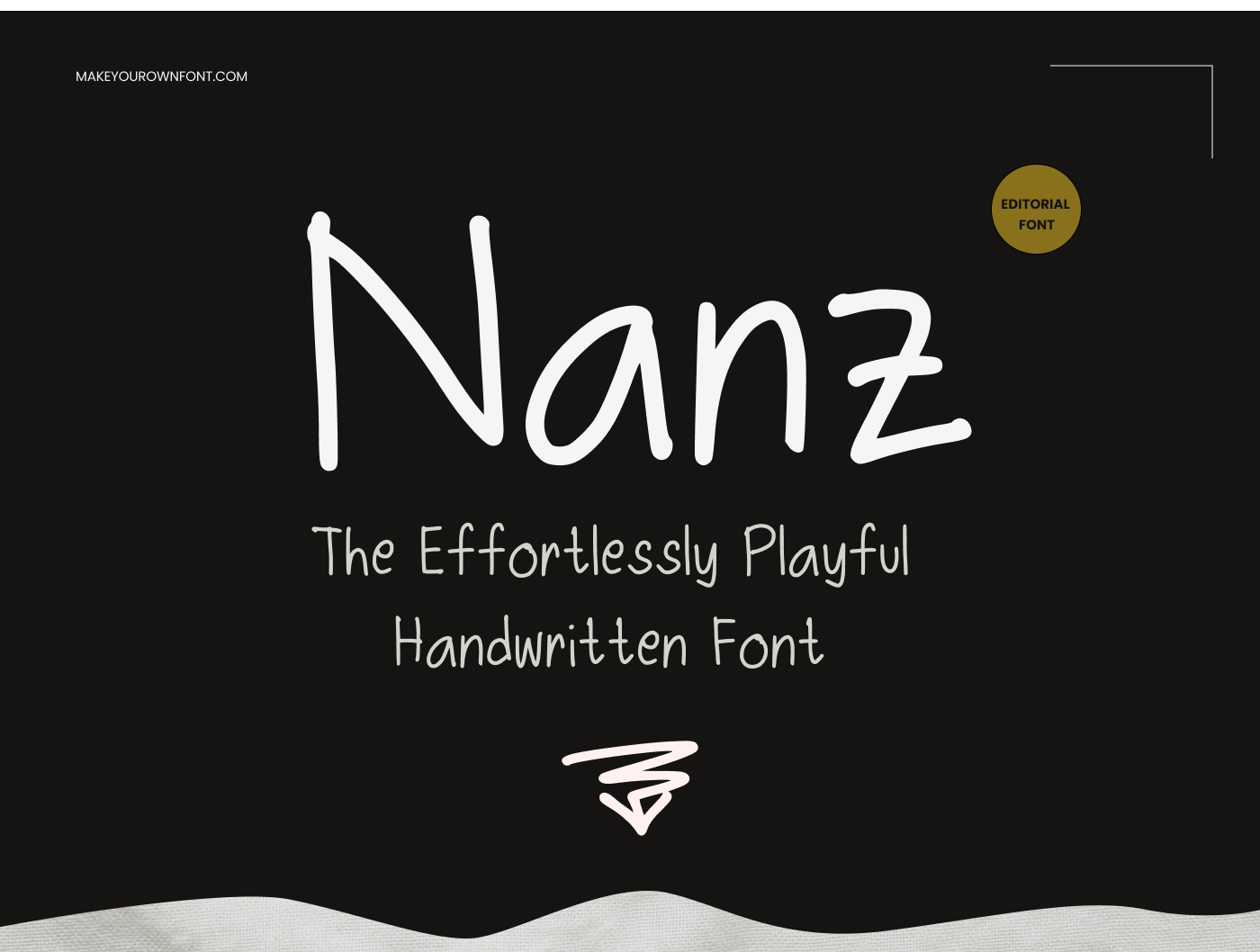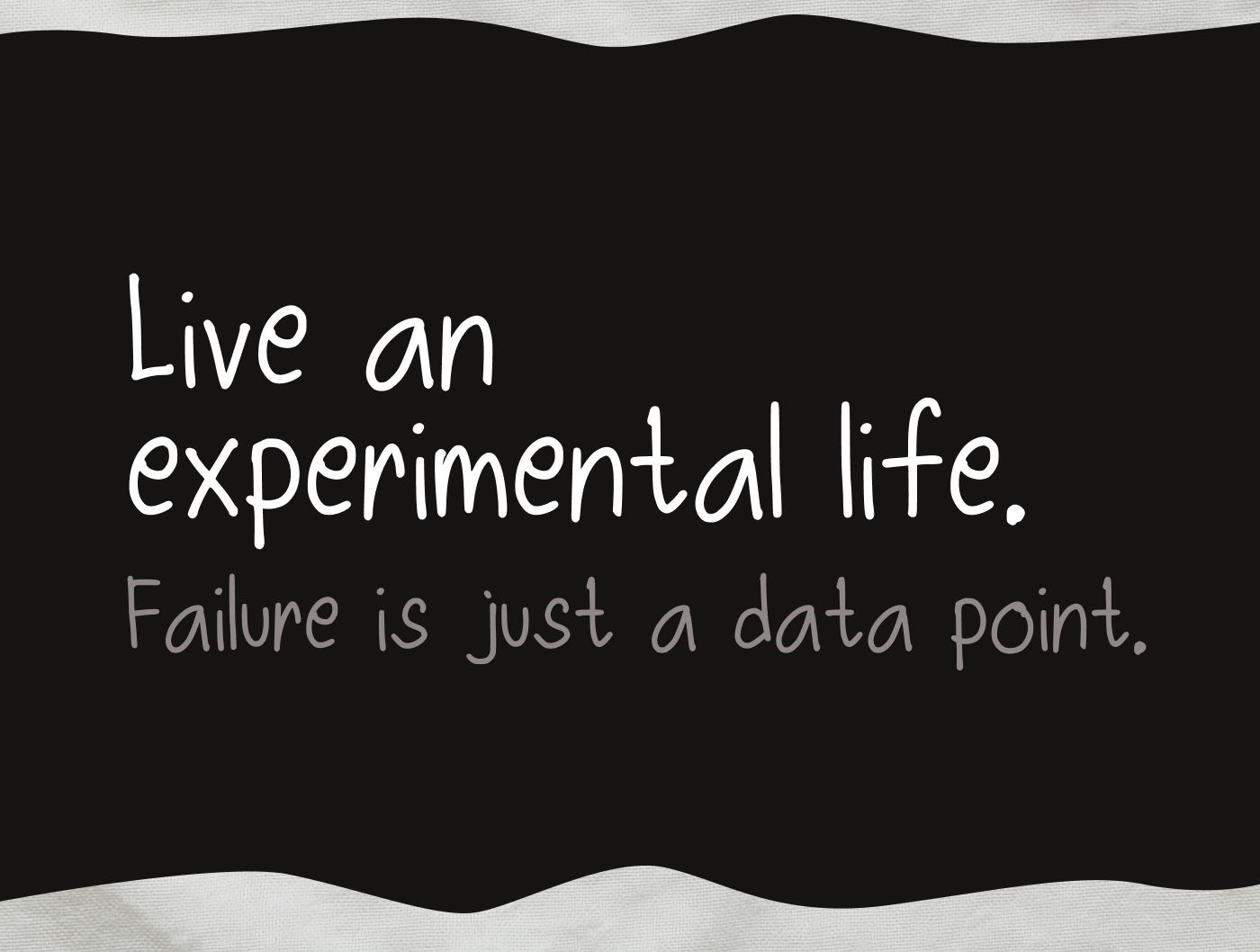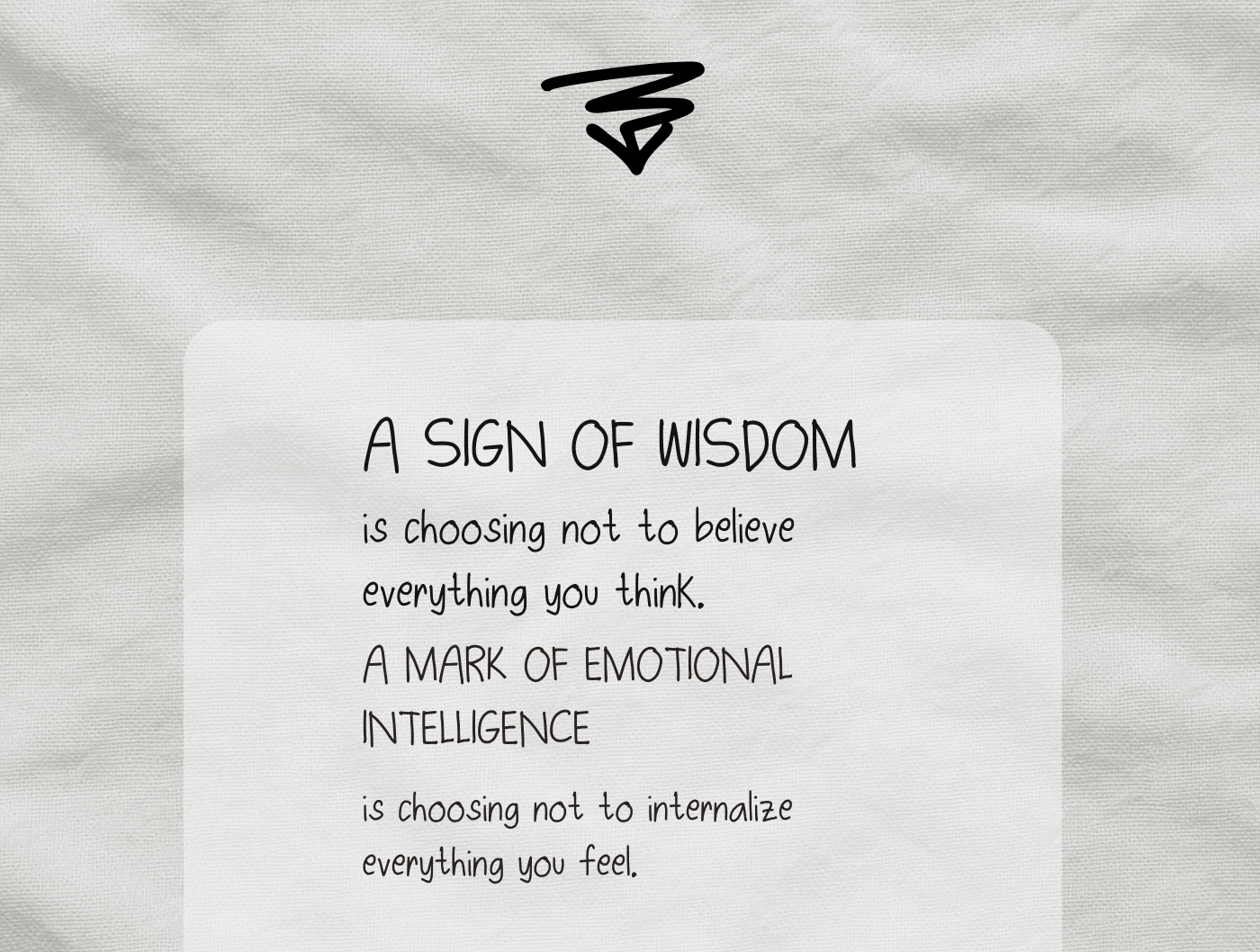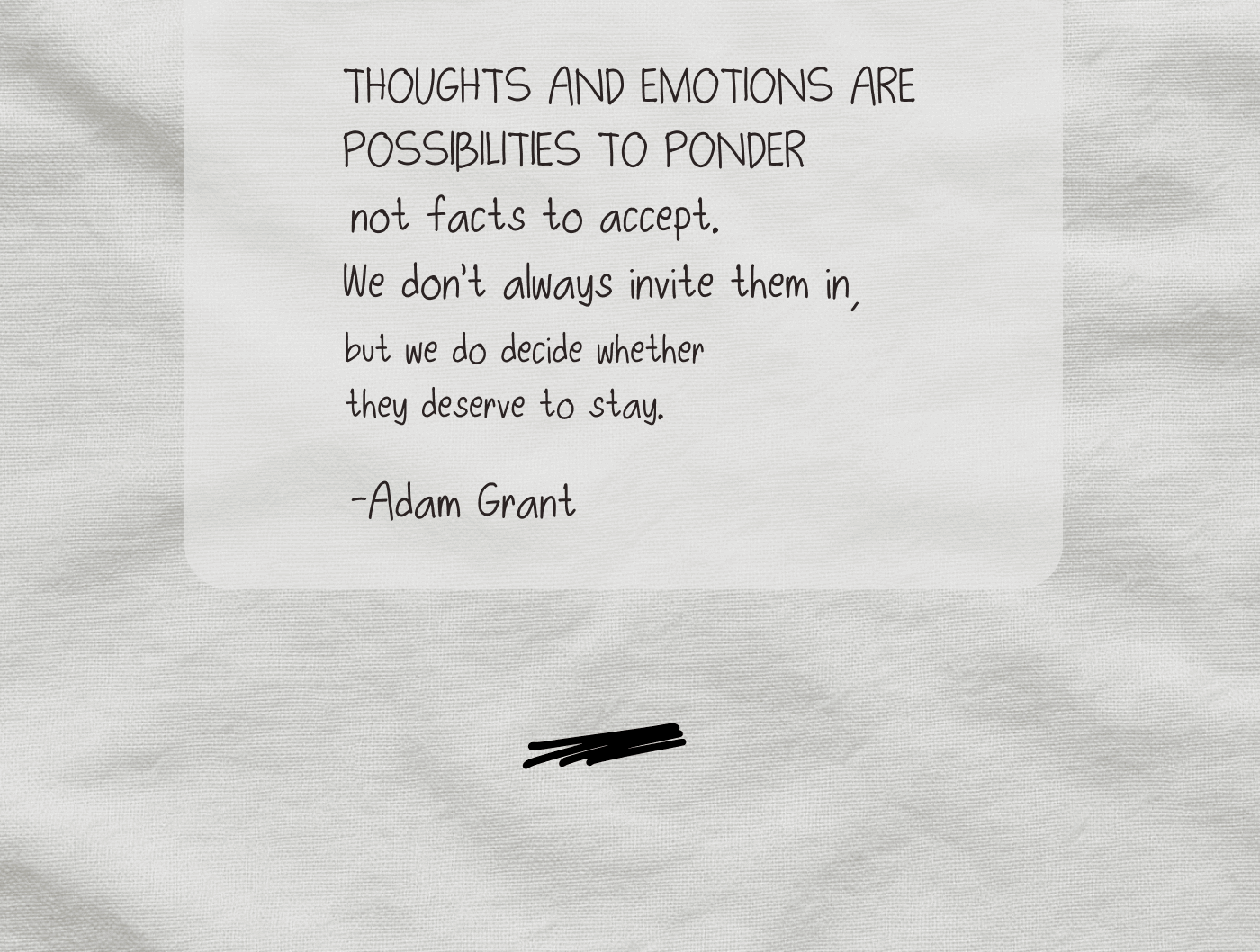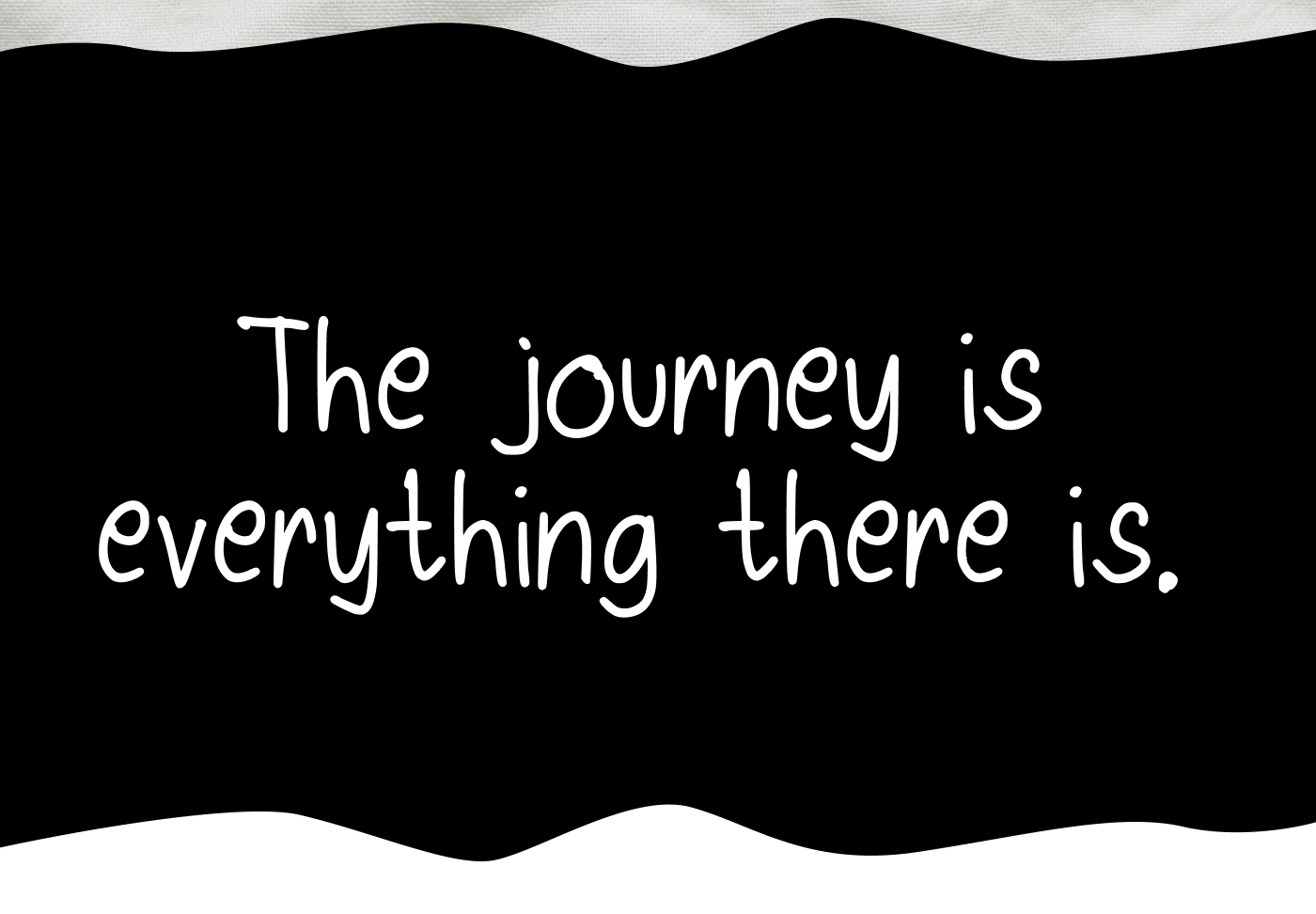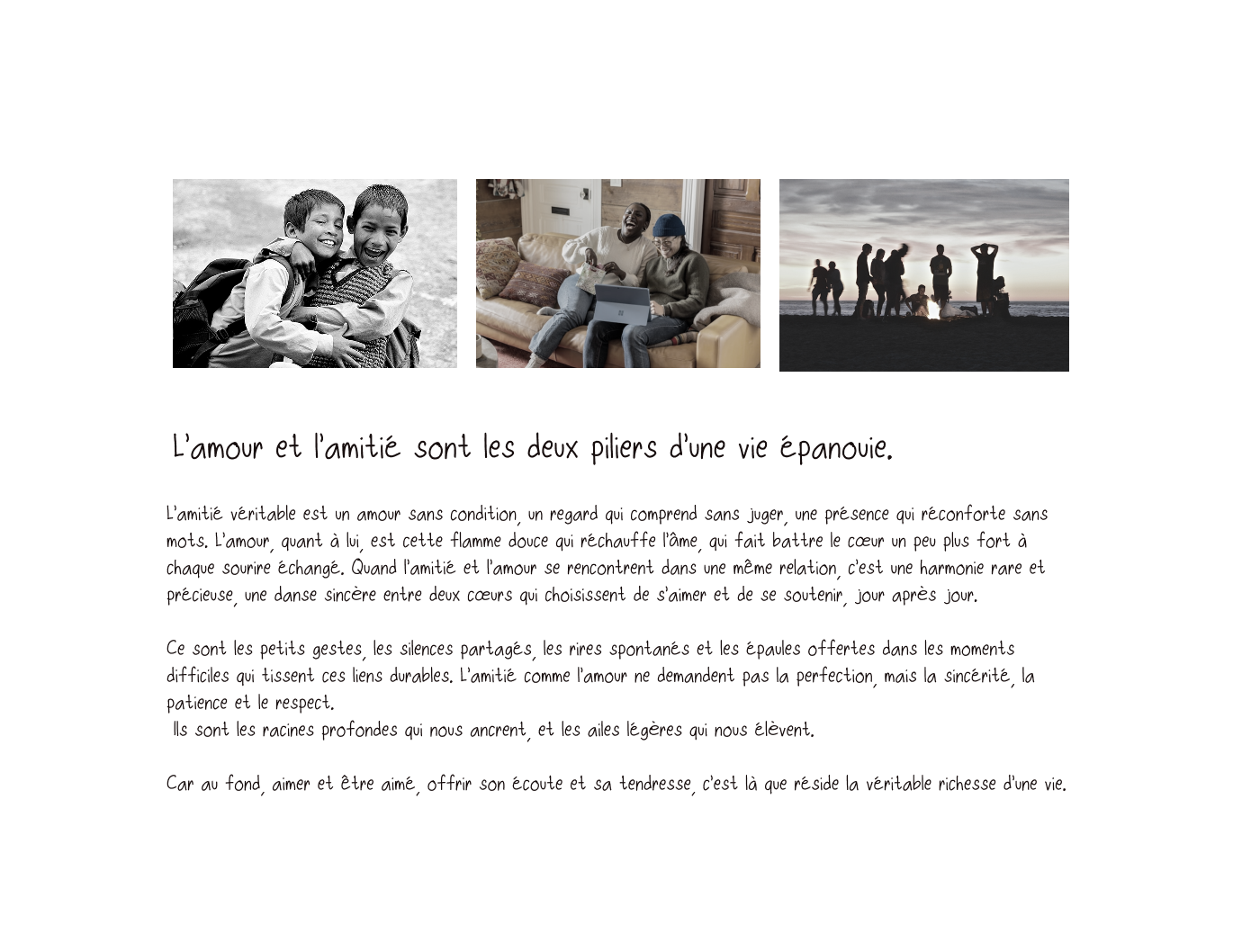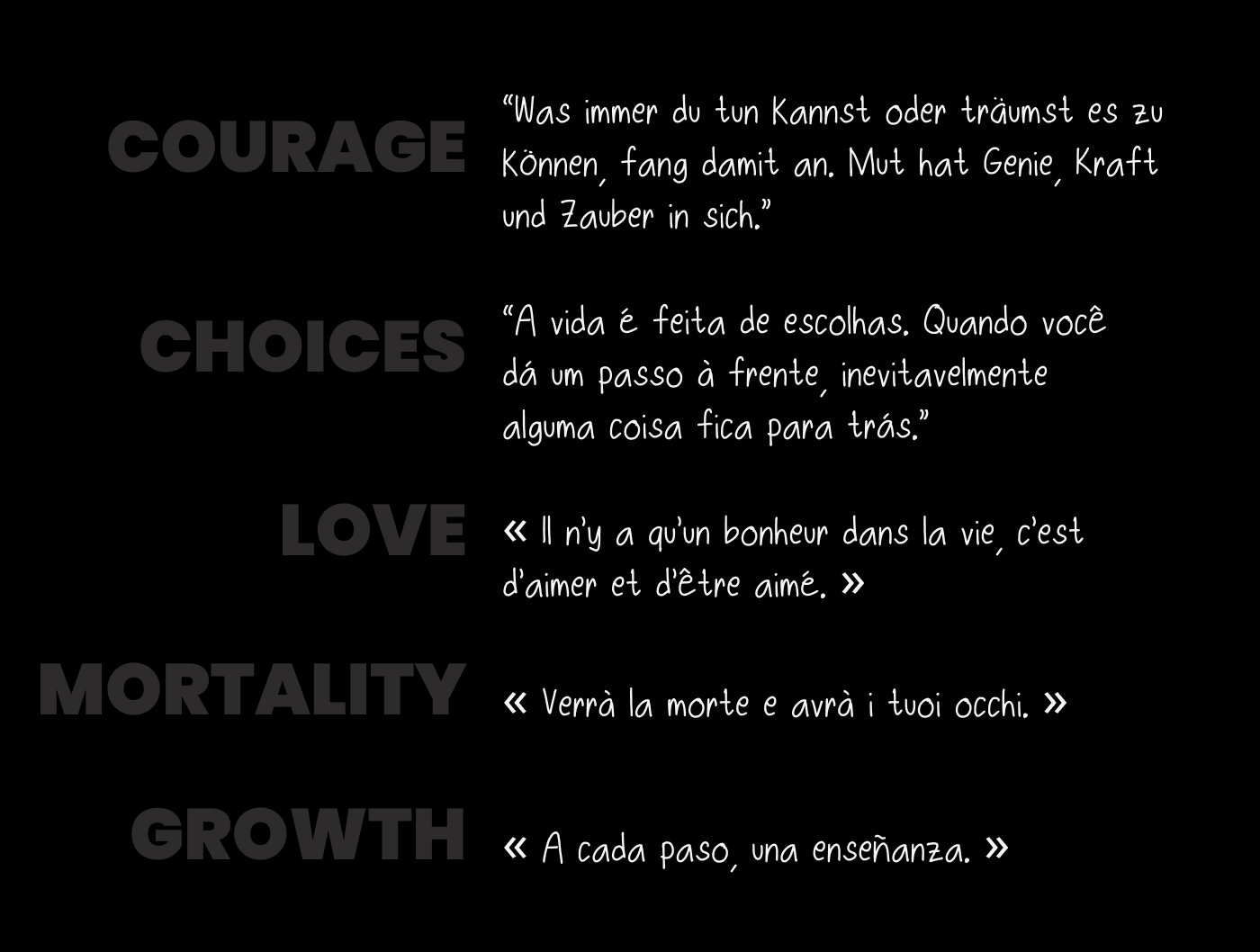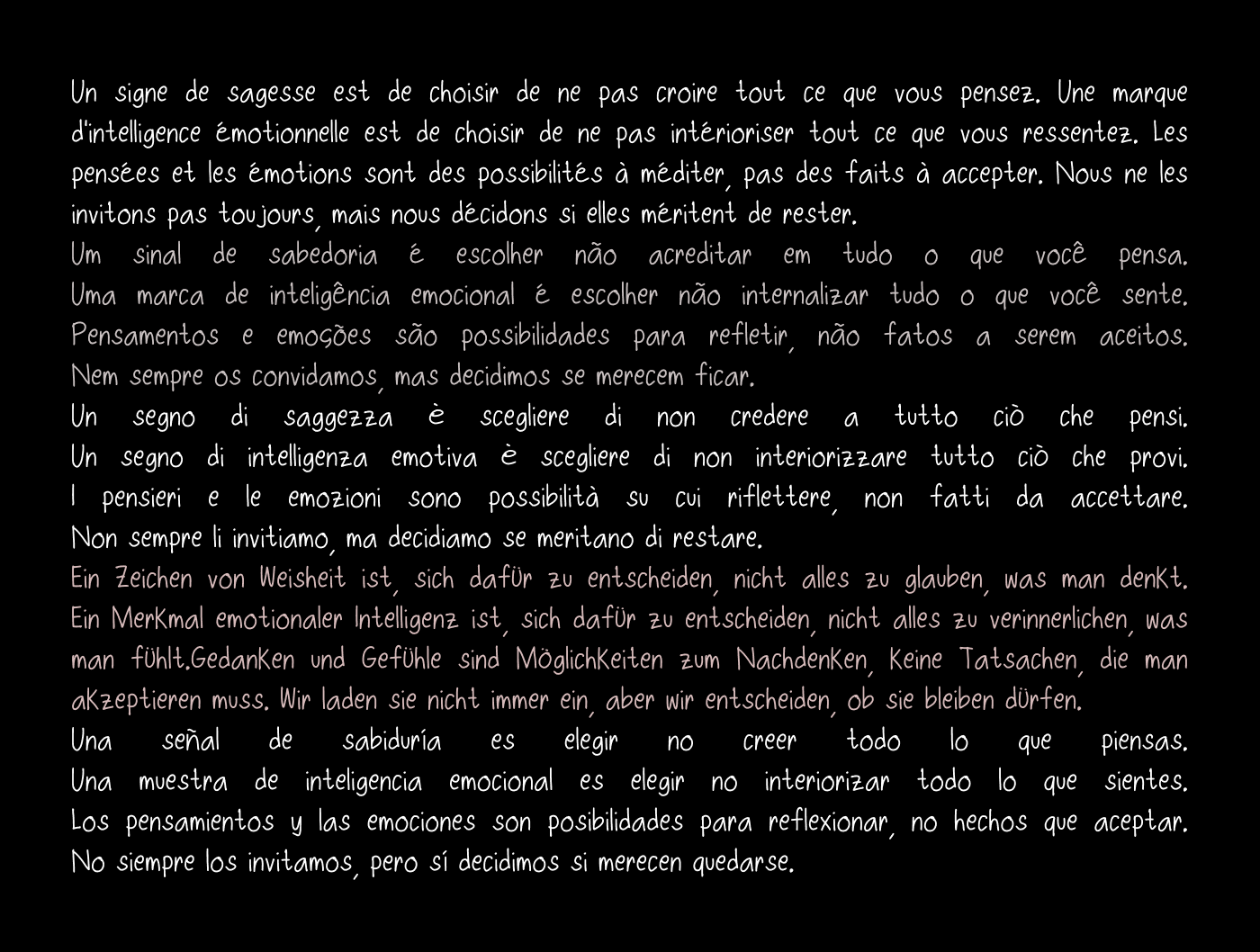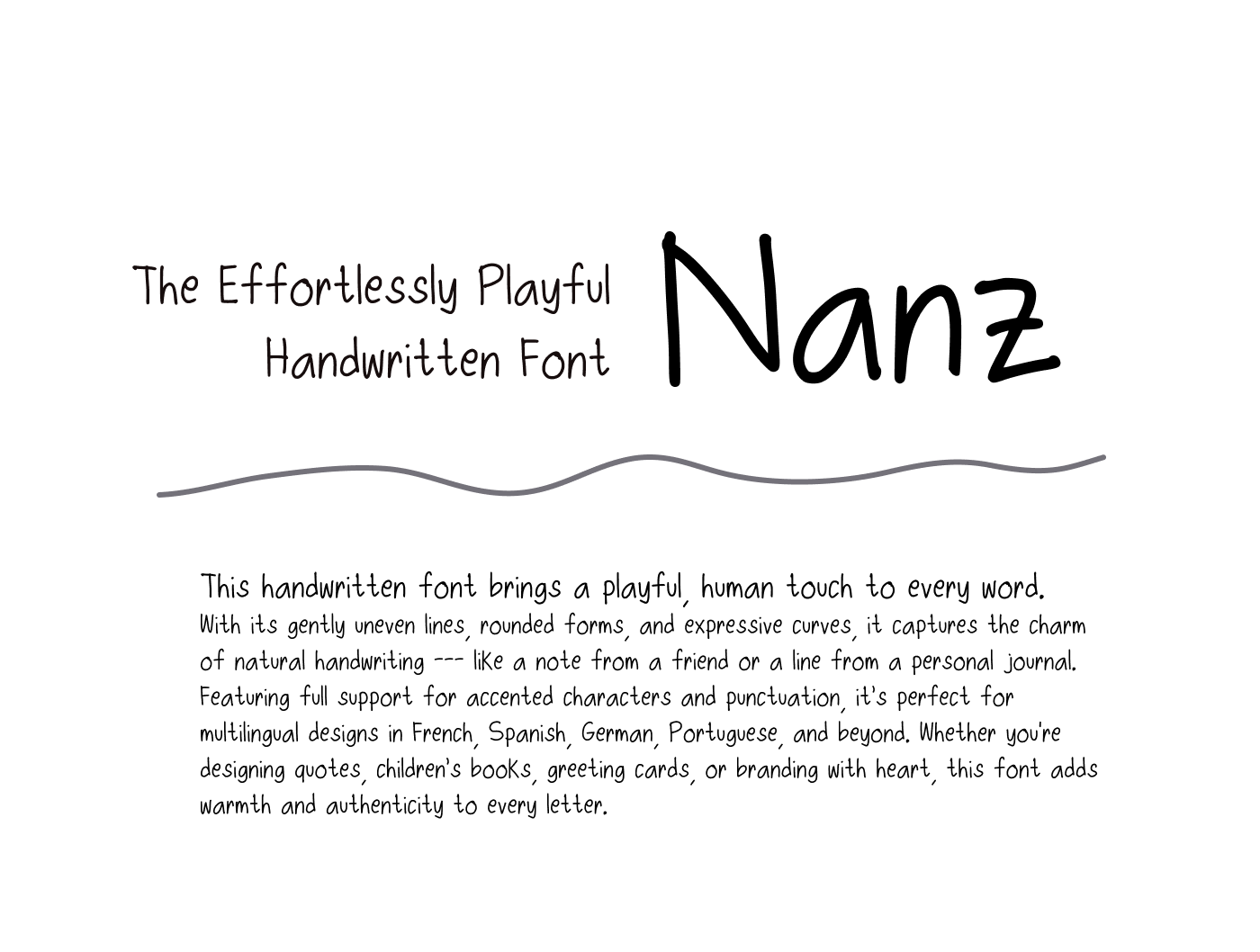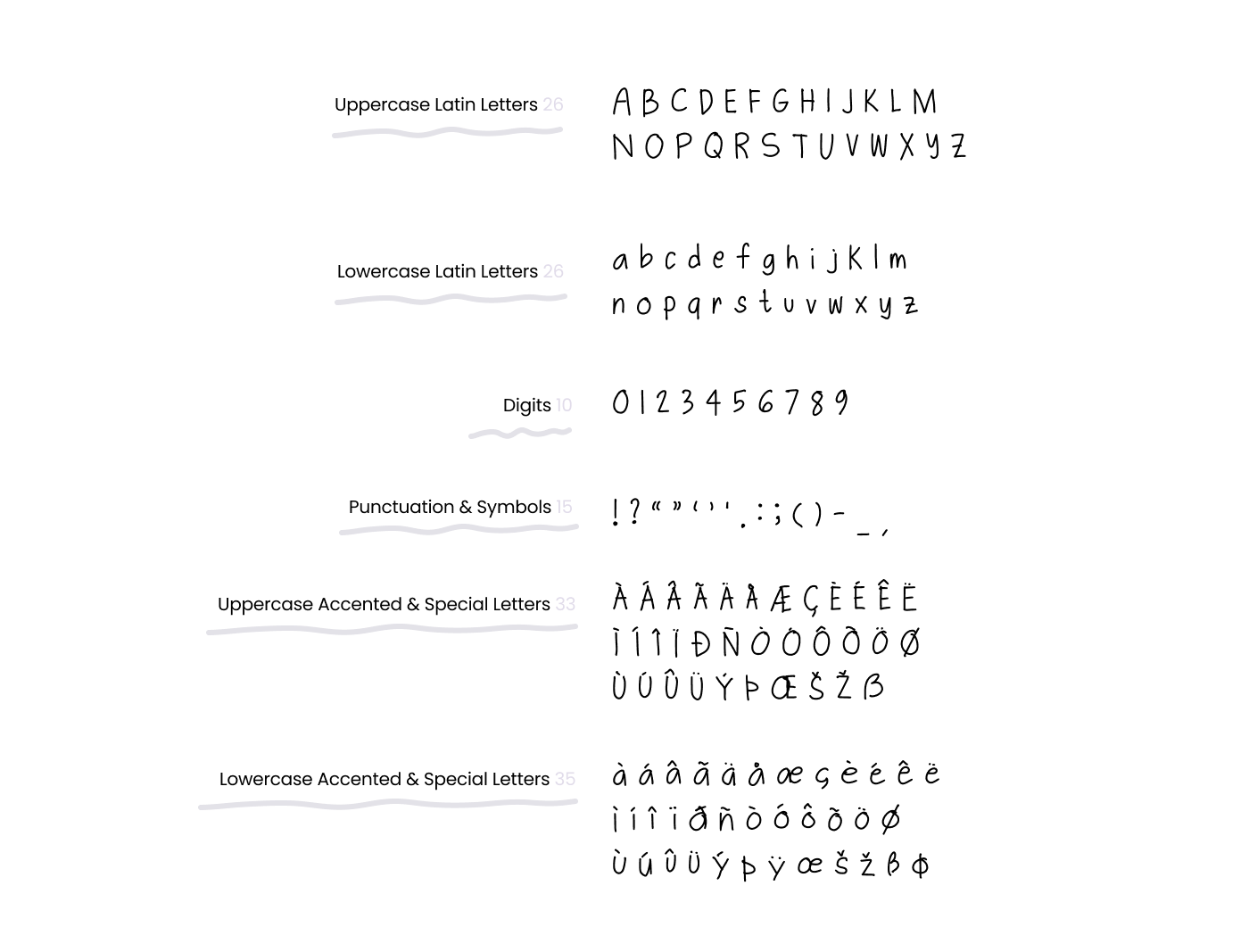
Nanz handwritten font
What kind of font is Nanz?
Nanz is a handwritten font example that shows how a personal writing style can become a real downloadable font with extended Latin character support.
What characters does Nanz show?
Nanz demonstrates a larger Premium-style character set with uppercase letters, lowercase letters, numbers, punctuation, and accented Latin characters.